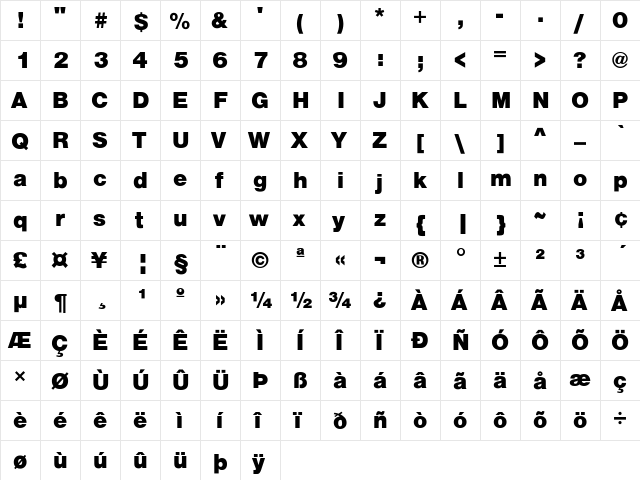
Helvetica-Heavy Regular Font Preview
Helvetica-Heavy Regular
Helvetica-Heavy Regular Font Details
Design Context for Helvetica-Heavy Typeface
Helvetica-Heavy offers clean, dependable letterforms without strong stylistic allegiance, making it a practical choice for designers who need flexibility.
Pro Tip: Pair Helvetica-Heavy with a font of contrasting weight or personality to build a more expressive typographic hierarchy.